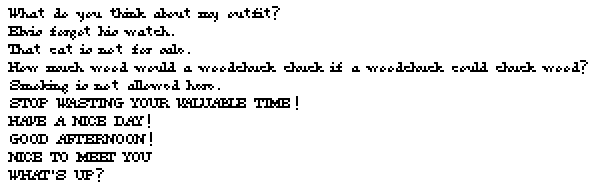
3 x-height font, proportional and 5x5-based, that looks like script because of /thanks to the serifs and absence of spacing (say 'condensed'?), cool!
Congratulations! FontStruct Staff have deemed your FontStruction worthy of special mention. “FivePix Serif” is now a Top Pick.
I need to play a little bit with the kerning I think. The "t" is sometimes too far away.